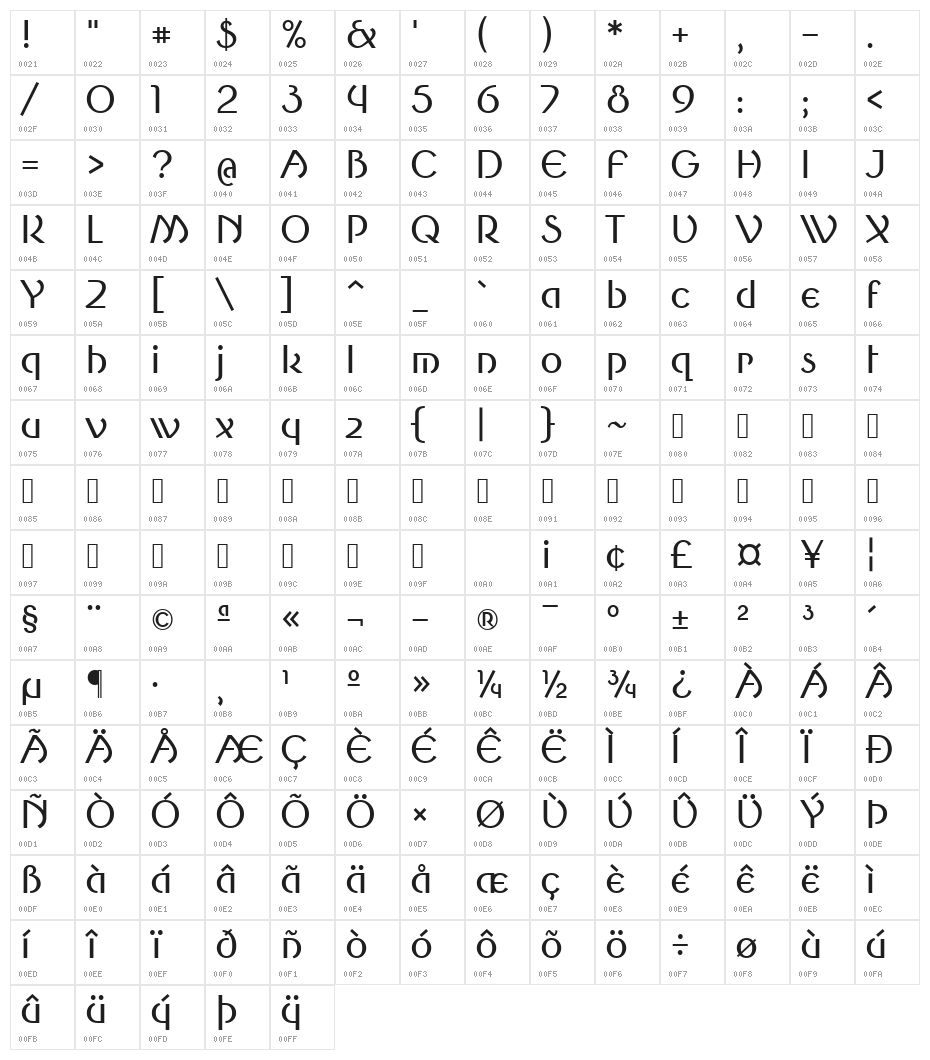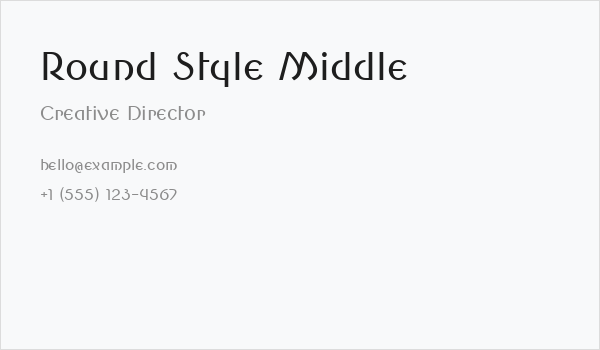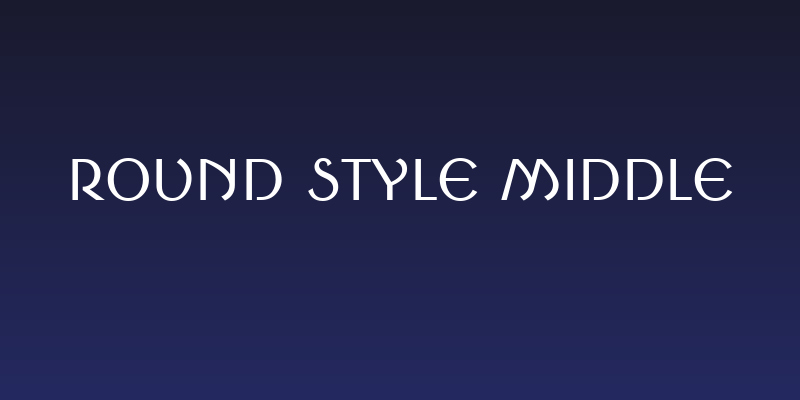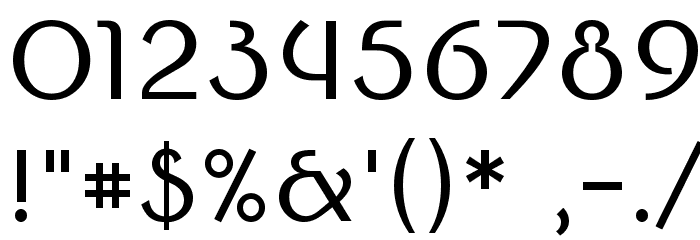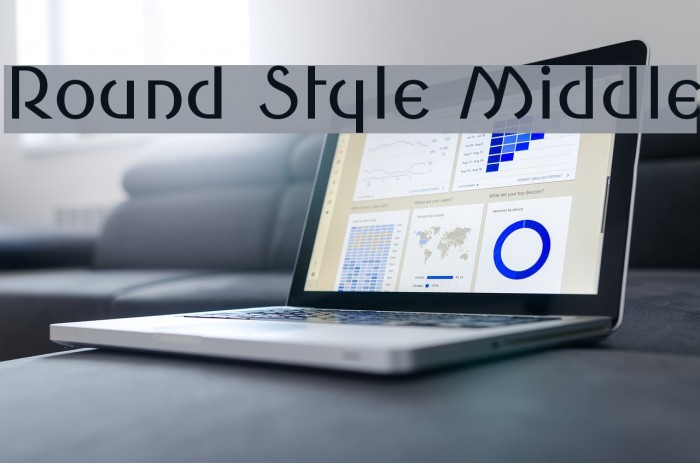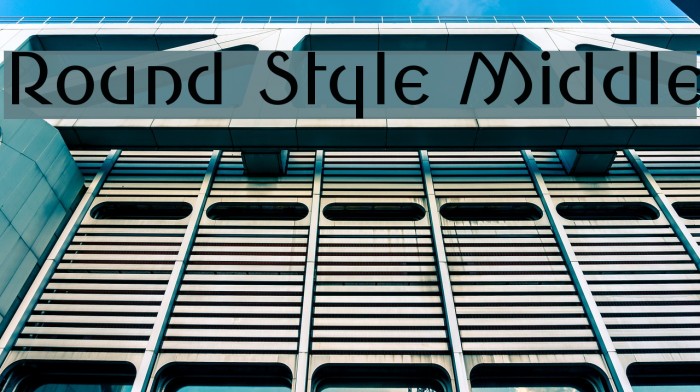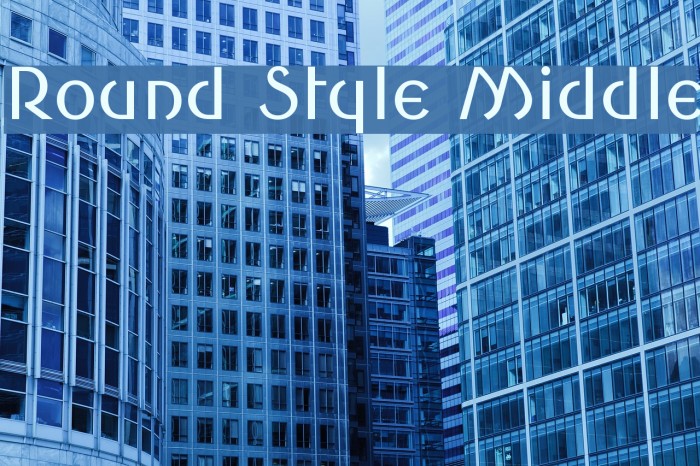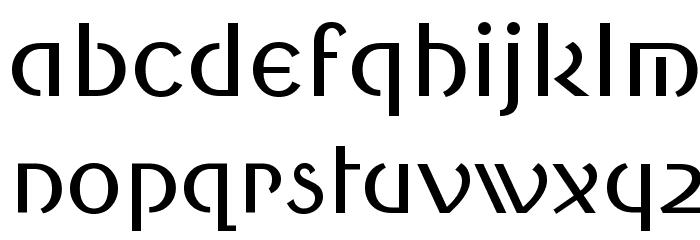
Round Style Middle Font
Round Style Middle Description
This font features a unique blend of geometric and modern design elements, characterized by its rounded and stylized letterforms. The uppercase letters exhibit a distinct angularity with smooth curves, creating a dynamic and futuristic appearance. The lowercase letters maintain a consistent style, with a slightly more playful and approachable feel. The numerals are bold and clear, ensuring readability while maintaining the overall aesthetic. Special characters are well-integrated, complementing the font's cohesive look. This font's design is both innovative and versatile, making it suitable for a variety of creative applications.
| Use Case | Headlines, Logos, Digital Media |
| Proposed Projects | Ideal for branding, advertising, digital media, and editorial design projects that require a modern and distinctive look. |